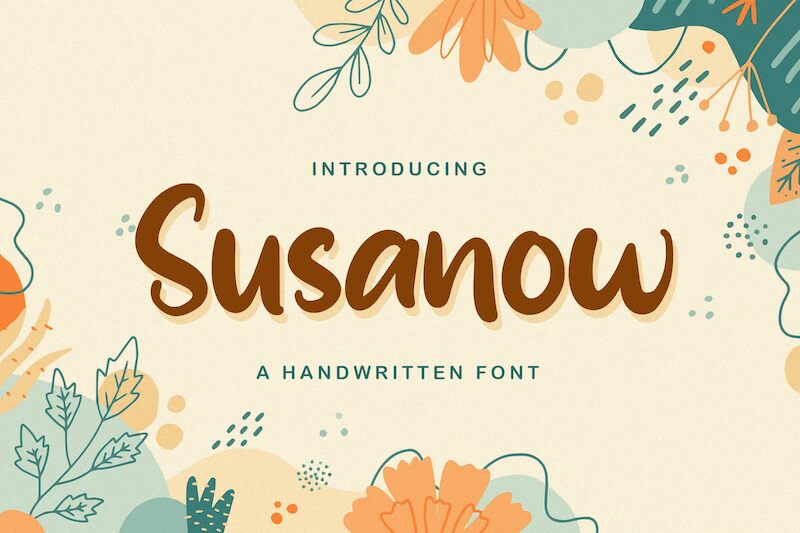
Susanow
Introducing Susanow, a smooth brush font designed by Virgiawan Listanto. This versatile font is perfect for creative projects such as branding, packaging design, and social media graphics. With its various widths, Susanow can be used for anything from bold headlines to delicate script. Its organic strokes and clean lines give it a natural feel that's perfect for adding a touch of personality to your designs. Give your projects the unique edge they deserve with Susanow - the perfect balance of style and versatility!